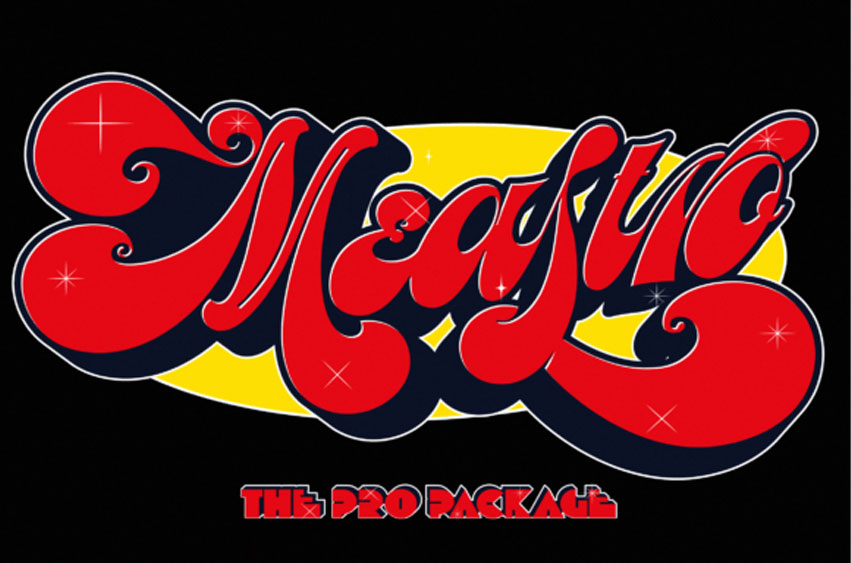
Meastro Duo Font
Meastro Duo Font is a cool, retro-style font duo (display and bold script). A little bit groovy, this font is perfect for creating eye-catching designs.
Add it confidently to your projects, and you will be amazed by the outcome generated! This font is PUA encoded, which means you can access all the glyphs and ligatures with ease!